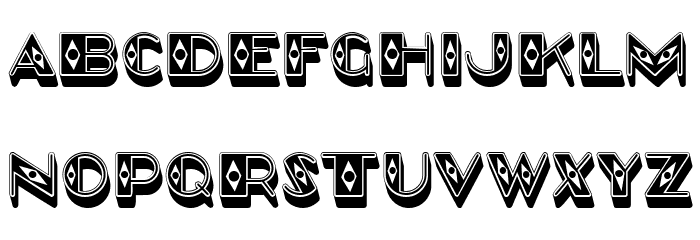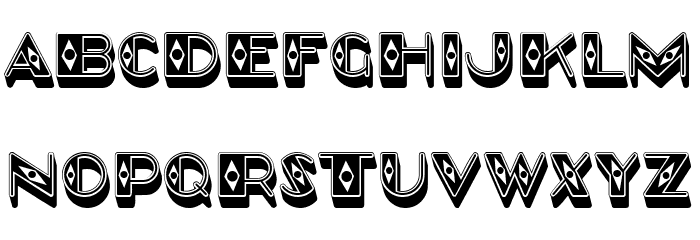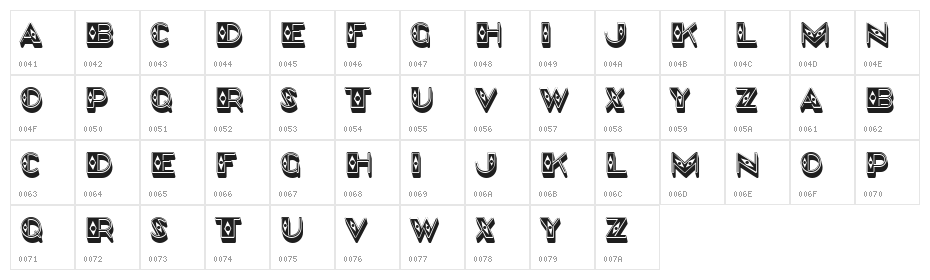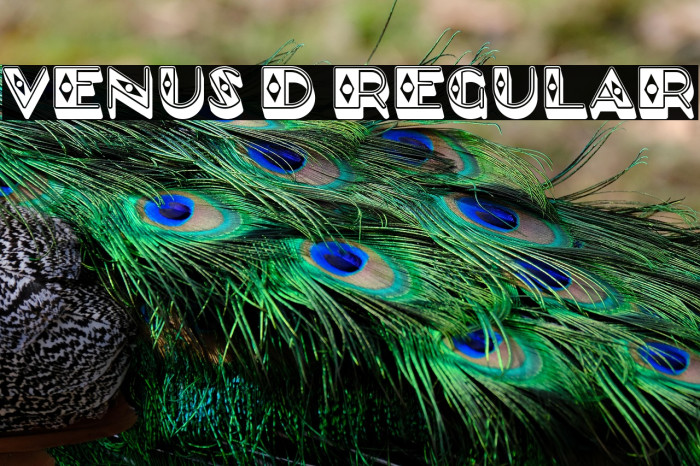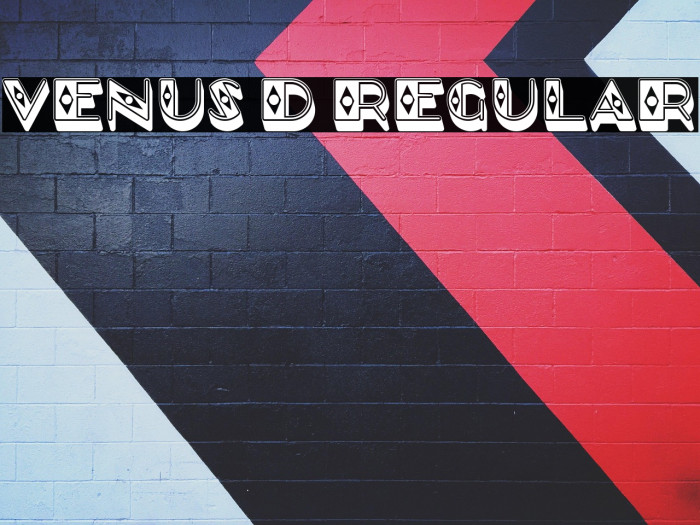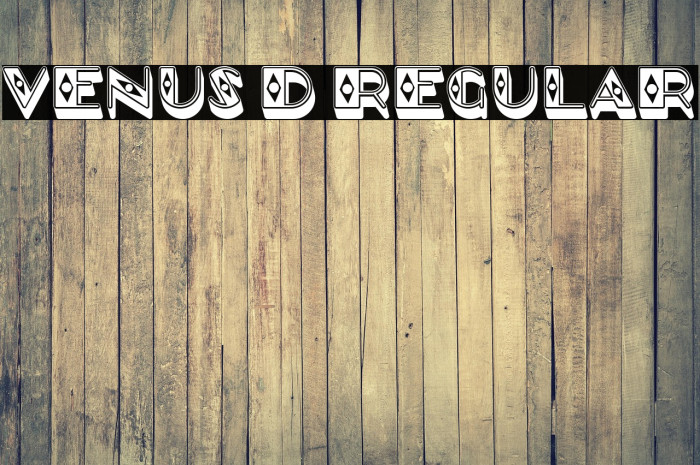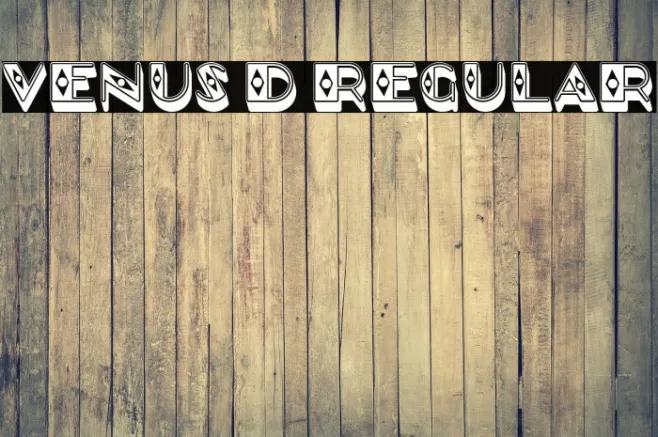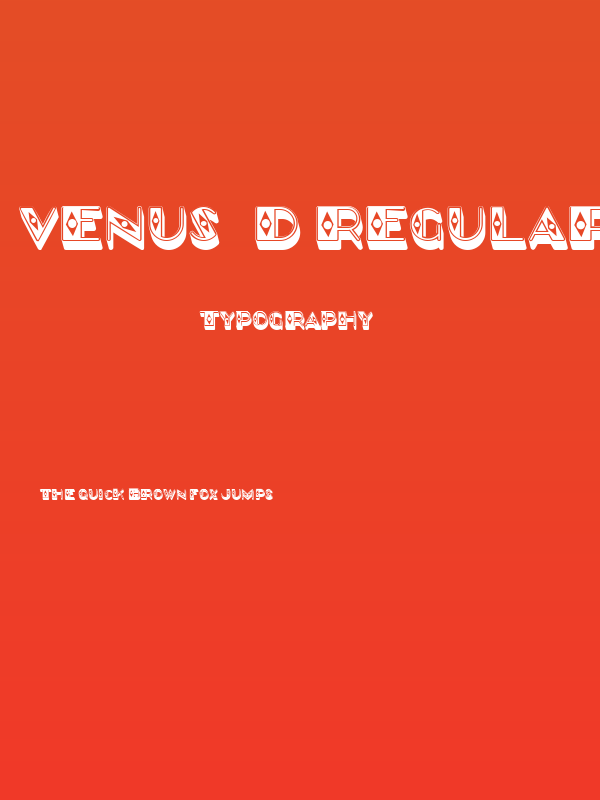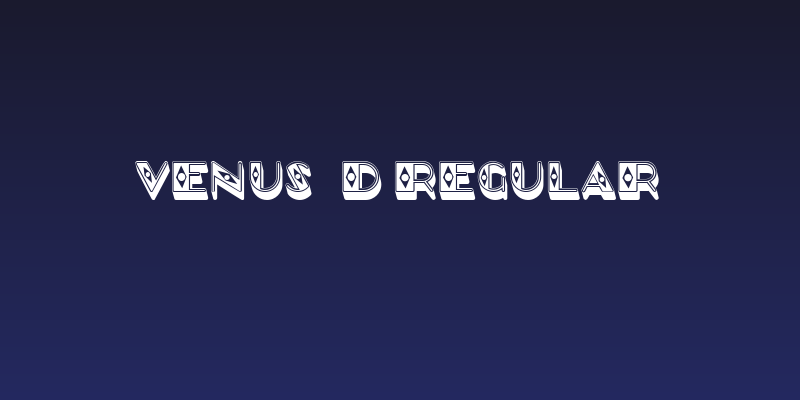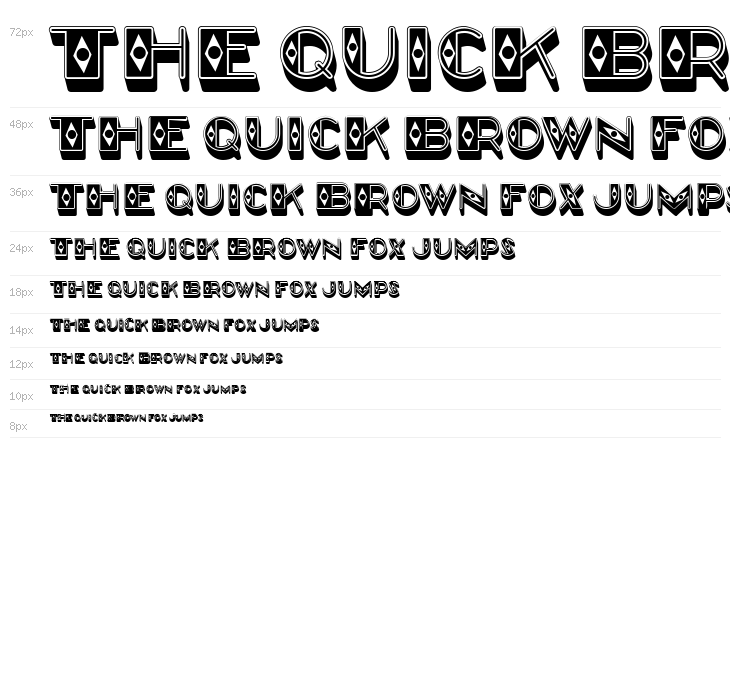
Venus 3D Regular Font
This font features a bold, three-dimensional style with a distinct geometric pattern inside each character, creating a unique and eye-catching appearance. The letters are uppercase and have a strong presence, making them ideal for impactful designs. The 3D effect is achieved through shadowing and layering, giving the font depth and a sense of movement. The geometric shapes within the letters add an artistic flair, making it suitable for creative projects. The overall design is modern and decorative, with a playful yet sophisticated vibe.
A bold, 3D decorative font with geometric patterns inside each character.
- Font: Venus 3D Regular
- Proposed Projects: Ideal for posters, logos, headlines, and any design requiring a striking visual impact.
- Overall Style: Modern, Decorative